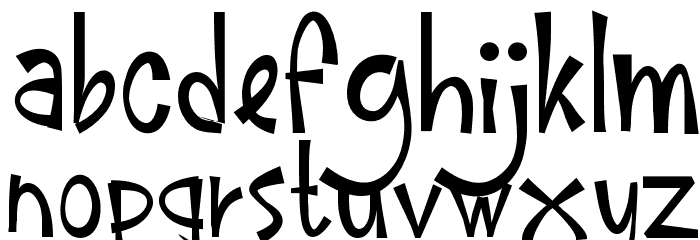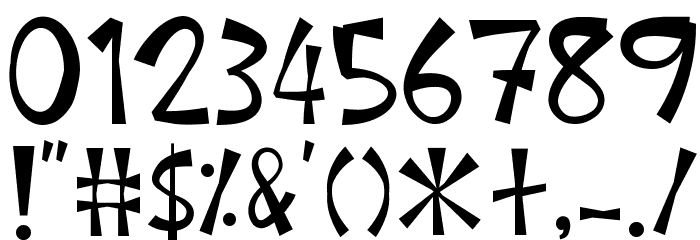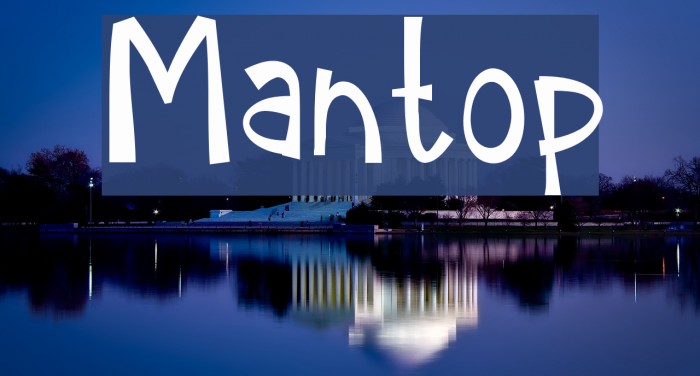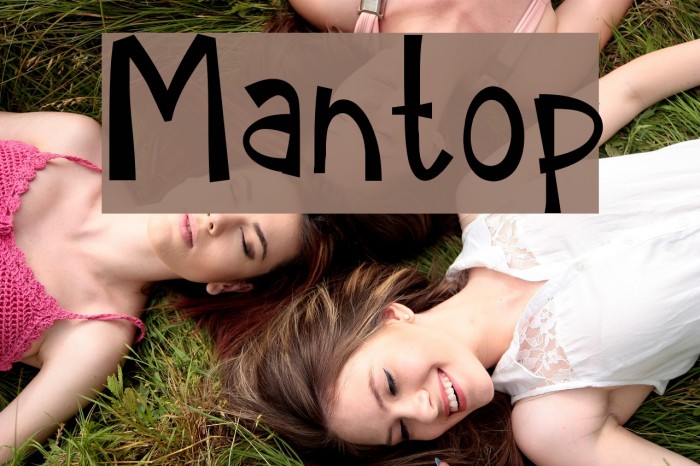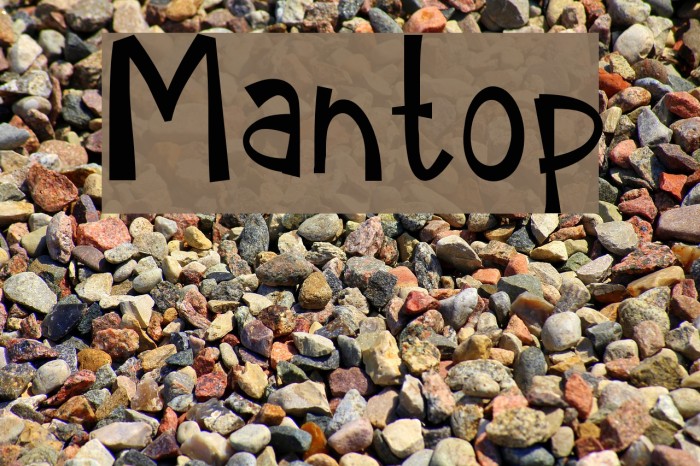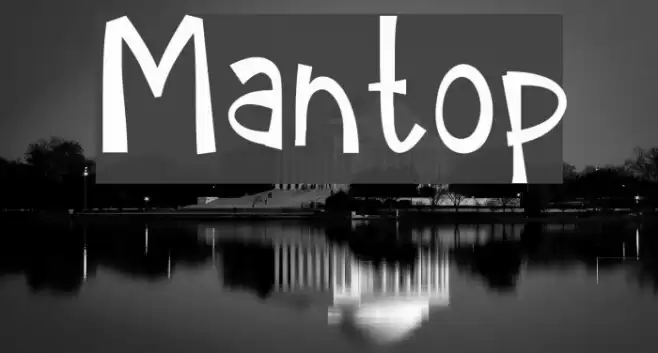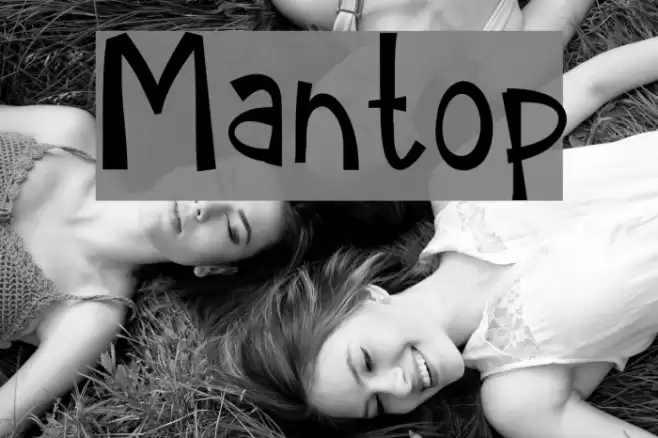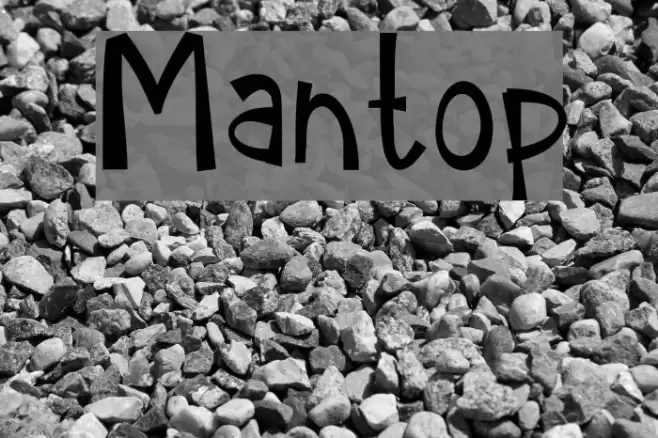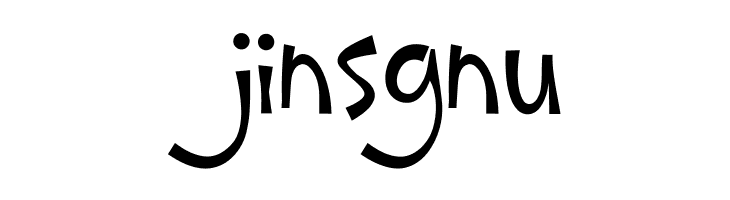
Mantop Font
This font features a playful and whimsical style with a hand-drawn appearance. The letters are bold and slightly irregular, giving them a lively and dynamic feel. The uppercase characters are tall and narrow, while the lowercase letters have a more rounded and flowing form. The numbers are consistent with the overall style, maintaining the same quirky and energetic vibe. Special characters are creatively designed, adding to the font's unique personality. This font is perfect for projects that require a fun and informal touch, such as children's books, playful branding, or creative posters.
A playful, hand-drawn font with bold, irregular characters and a whimsical style.
- Proposed Projects: Ideal for children's books, playful branding, creative posters, and informal invitations.
- Overall Style: Whimsical, Playful